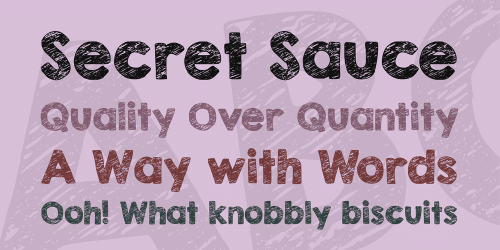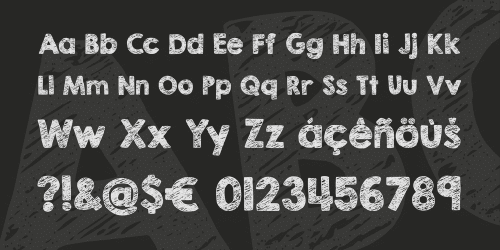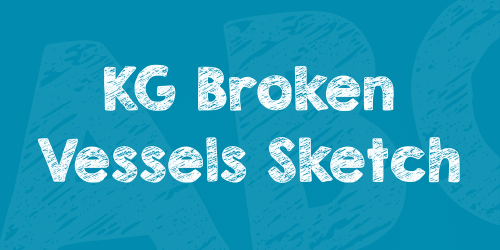
Kg Broken Vessels Sketch Font
Kg Broken Vessels Sketch Font is a hand-sketched sans serif sketch font. For a solid version, pair this with KG Second Chances Solid.